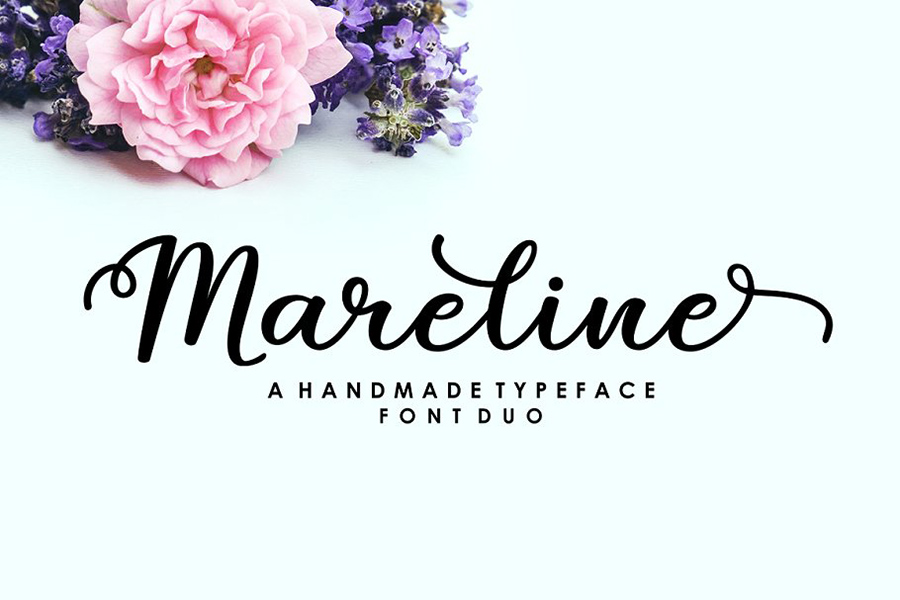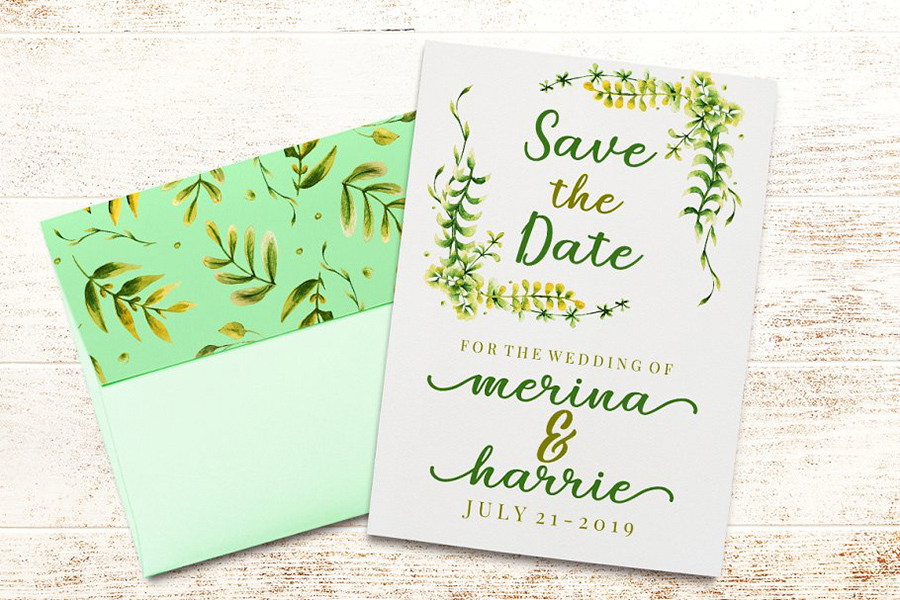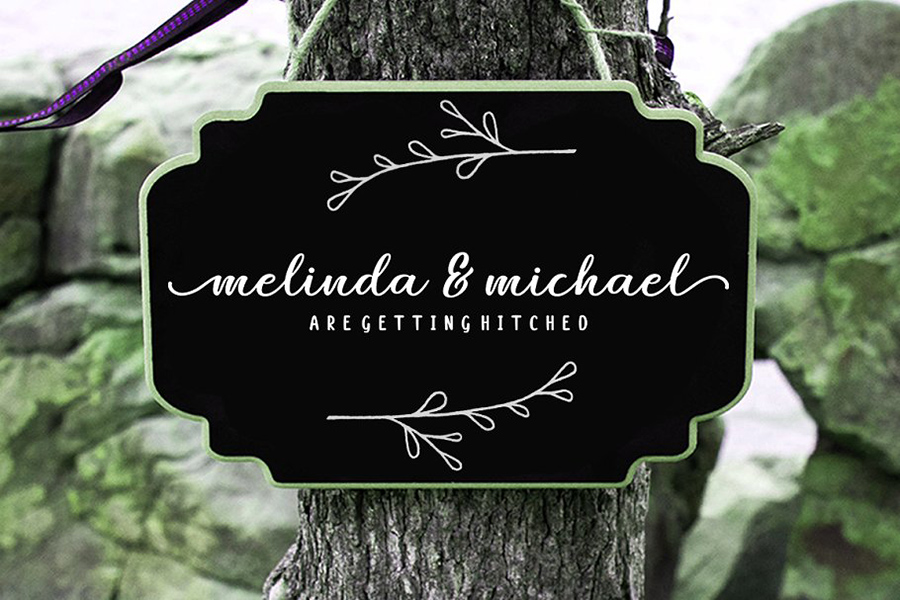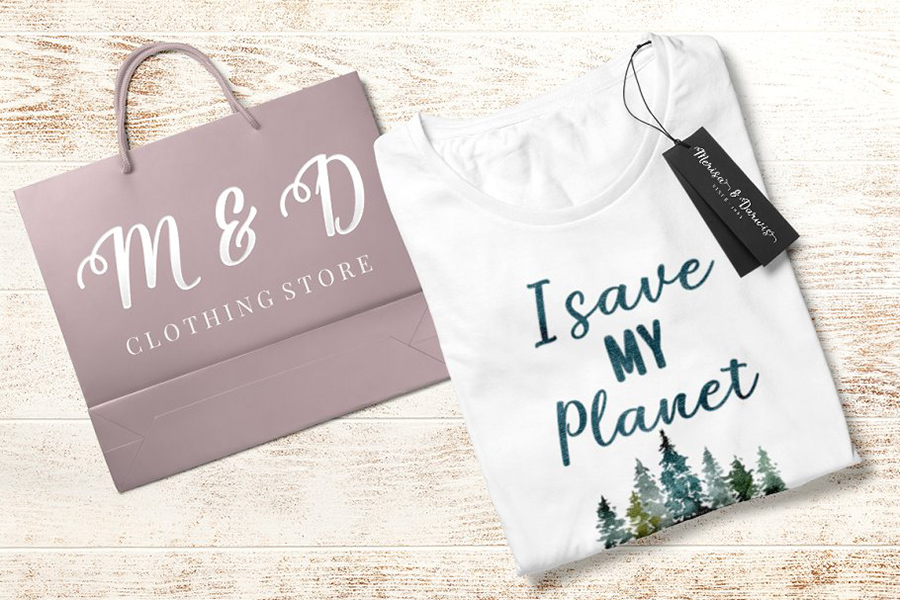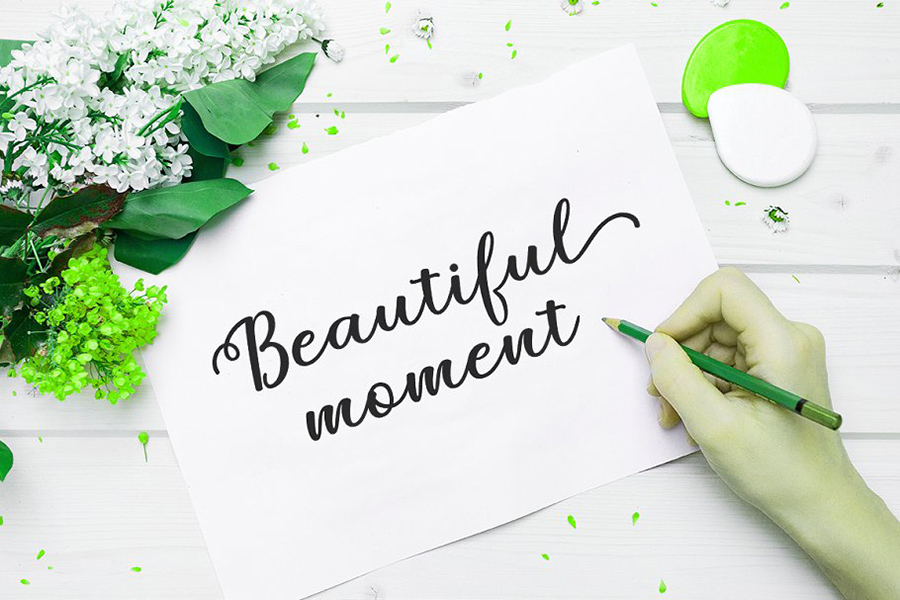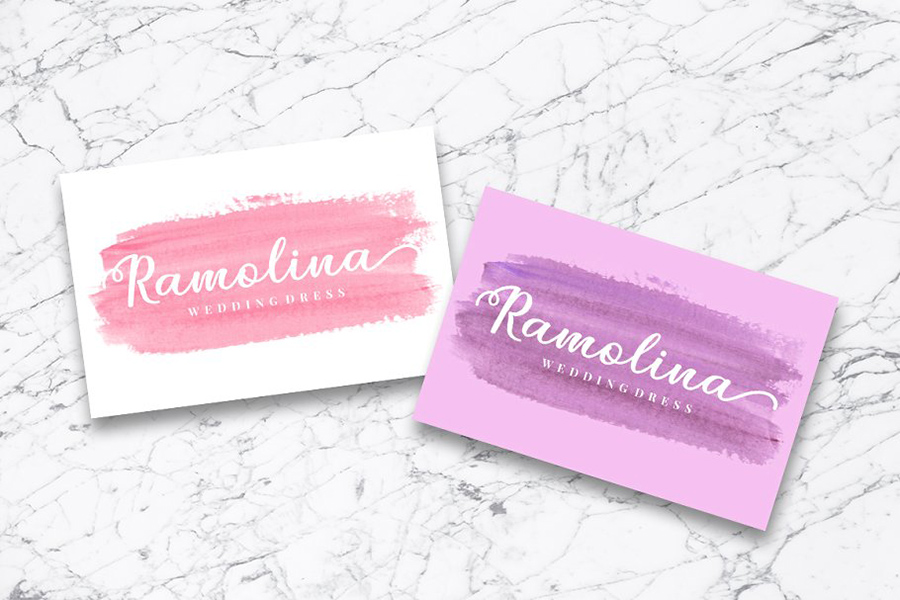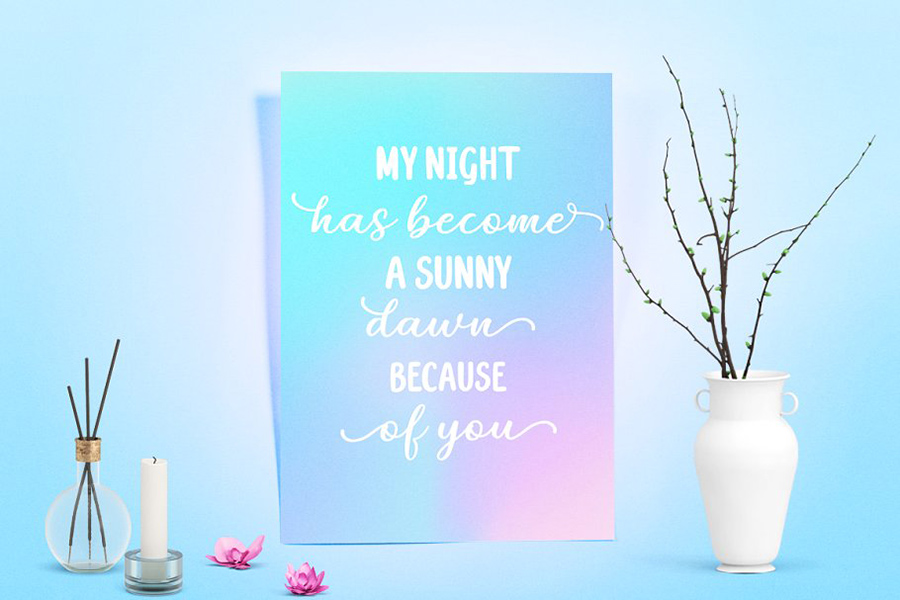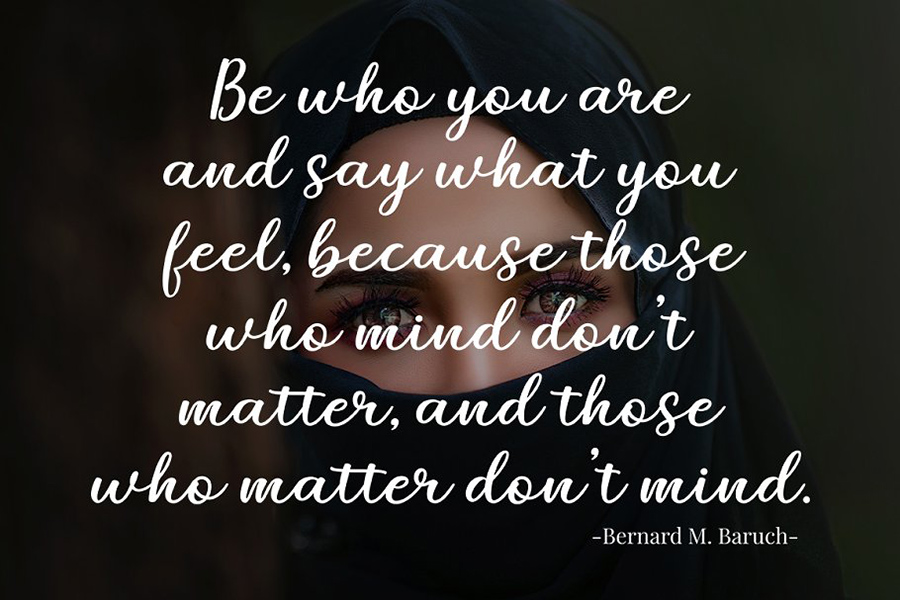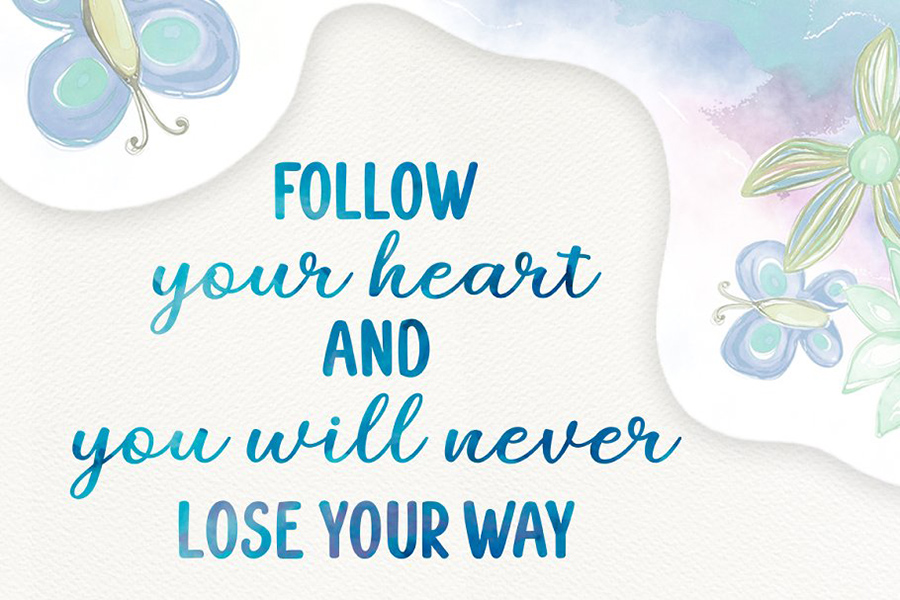
Mareline Script Free Demo
Mareline Script Free Demo a sweet hand-lettered font, casual and dynamic, bold and irregular baseline. This freebie contains a complete set of lowercase, uppercase, punctuation, numbers. So download now, then you can try and use this font for any personal projects. As you can see, Mareline will work great on product packaging, prints, greeting cards, and other design purposes as well.